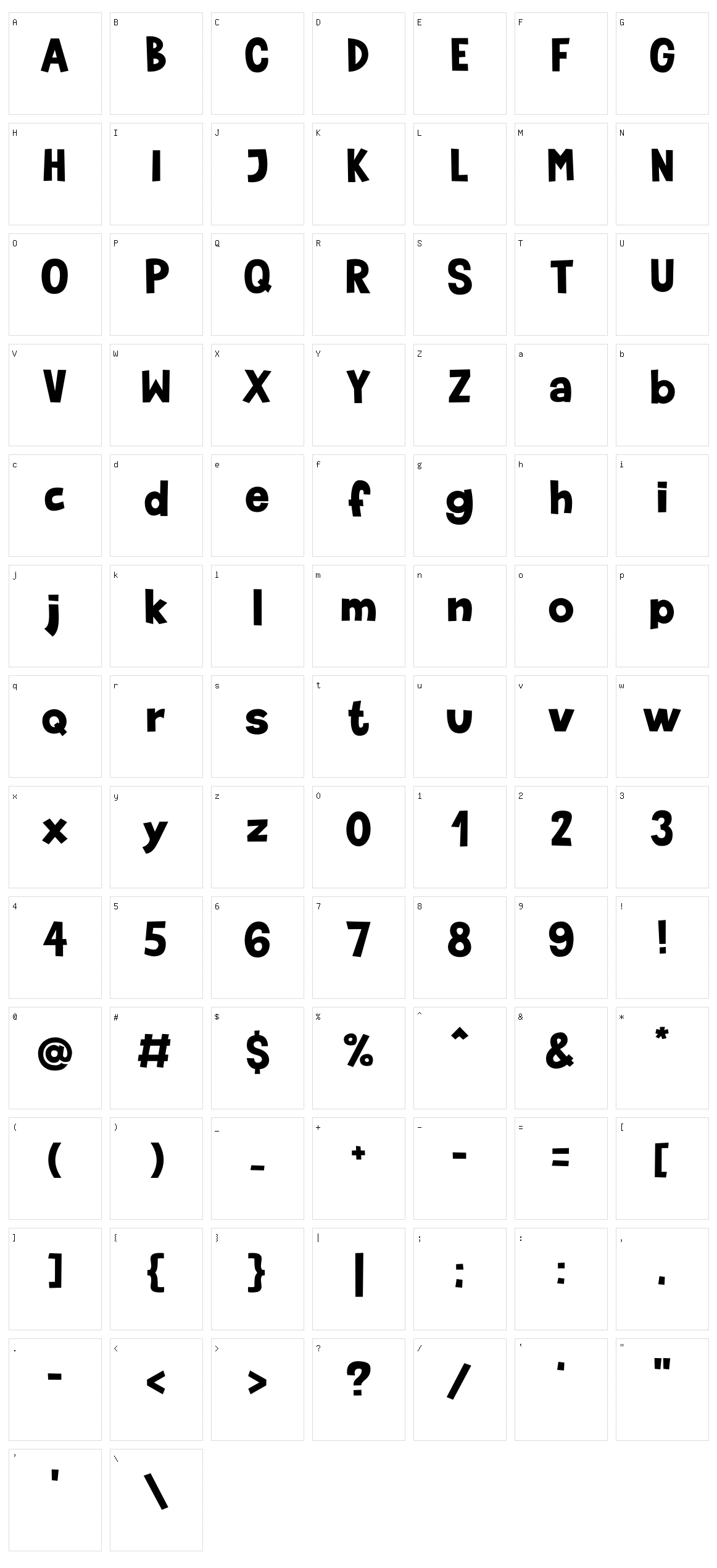
The free font Nathaniel-19 is carefully designed by Adam Jedrzejewski, showcasing a thoughtful balance of creativity and usability and falls under the Cartoon font style. When you download the ZIP file, it contains only 8.42 KB of font files, making it lightweight and quick to download. Please review the license details below to understand permitted usage and distribution rights. If license information is not available, we recommend using this font for personal projects only or contacting the author directly for commercial usage permissions.